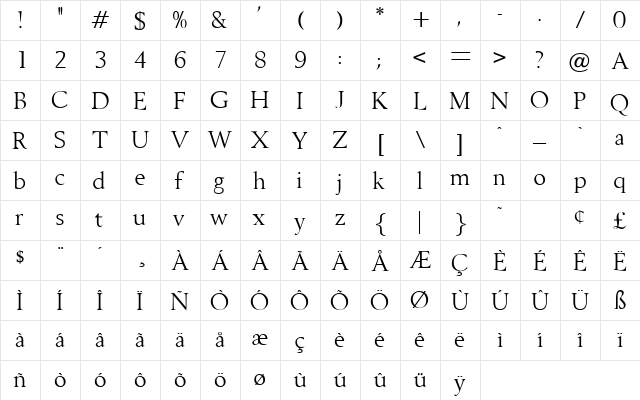
Berman Regular
Design Context for Berman Typeface
Berman takes a measured approach to typography — its balanced proportions and neutral character make it a reliable workhorse for both digital and print work.